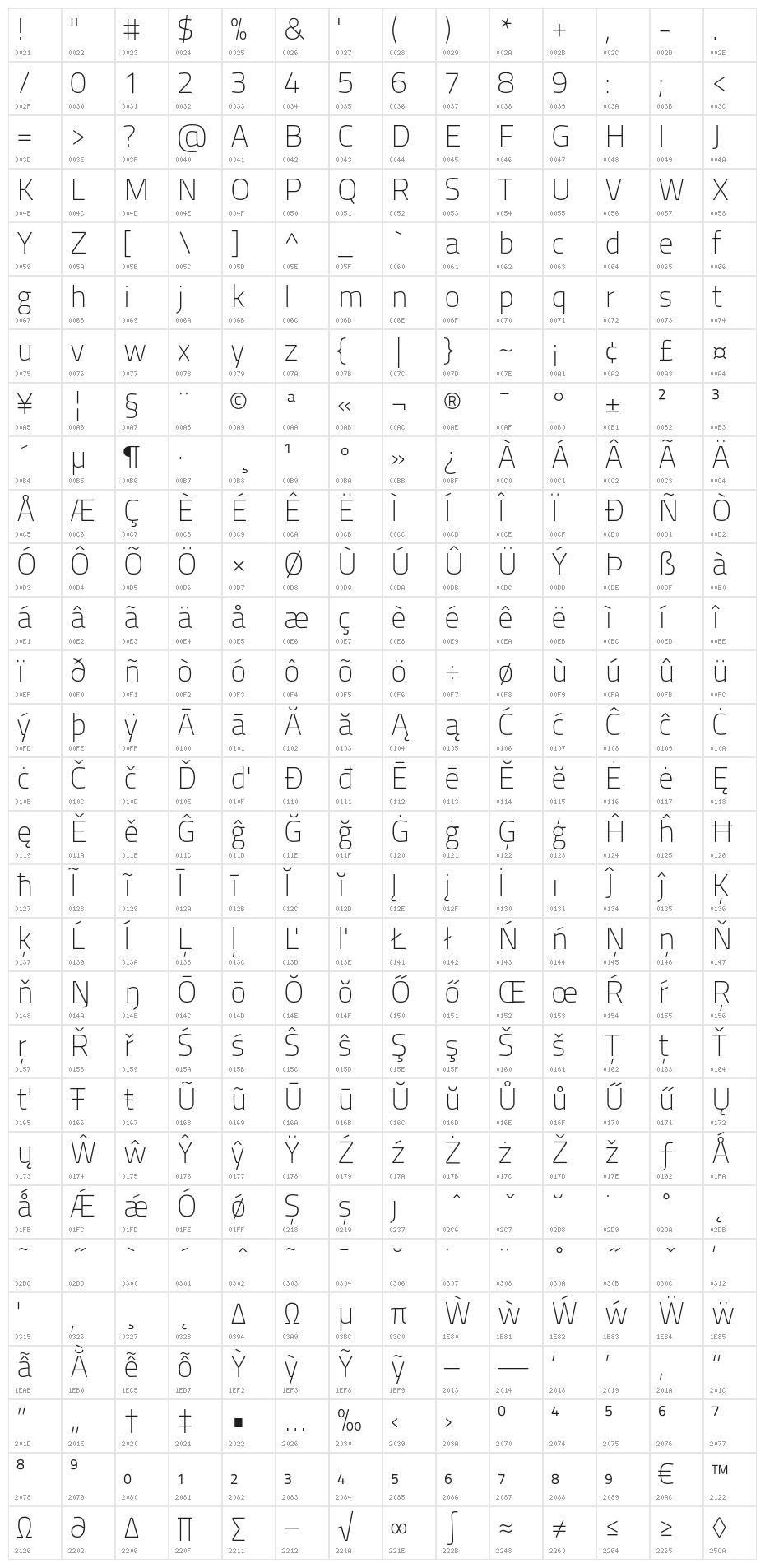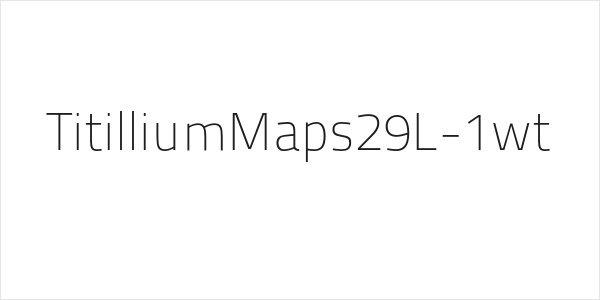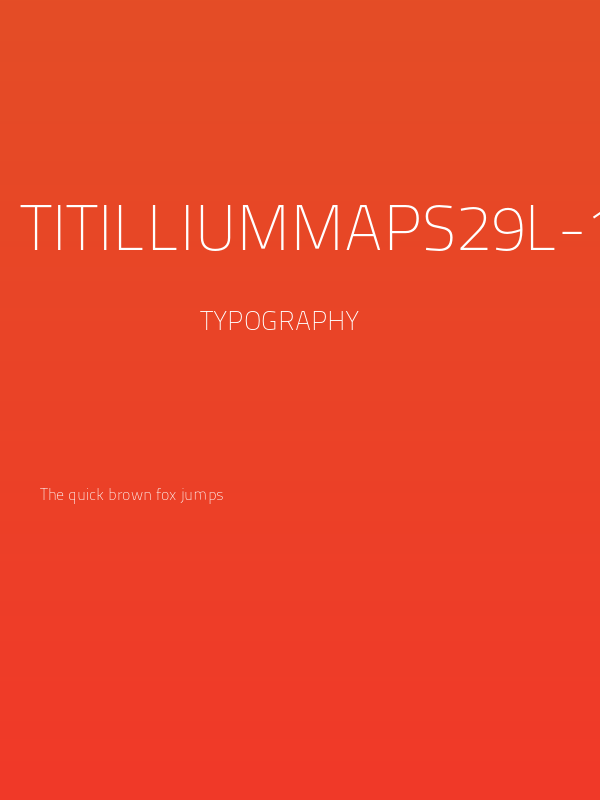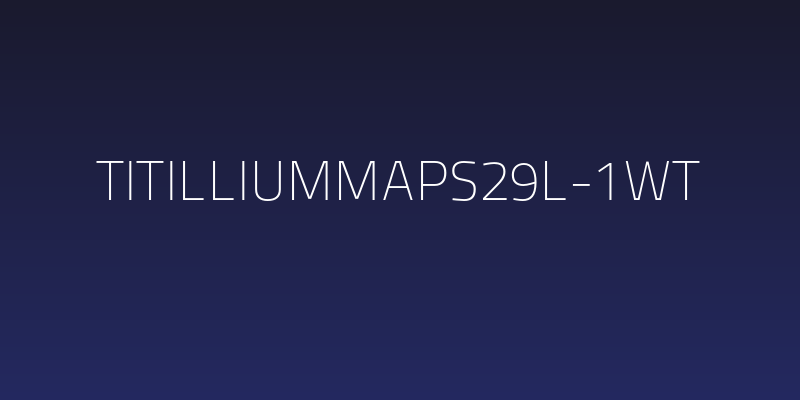
TitilliumMaps29L-1wt Font
TitilliumMaps29L-1wt Description
This font features a clean and modern sans-serif design with a geometric structure. The characters are well-balanced with a uniform stroke width, giving it a sleek and contemporary appearance. The uppercase letters are slightly taller than average, providing a sense of elegance and sophistication. The lowercase letters maintain a consistent height, contributing to the font's readability. The numerals are clear and distinct, making them suitable for both digital and print applications. Special characters are designed with the same attention to detail, ensuring a cohesive look across all text elements.
| Proposed Projects | Ideal for branding, web design, user interfaces, and corporate materials due to its clean and professional look. |